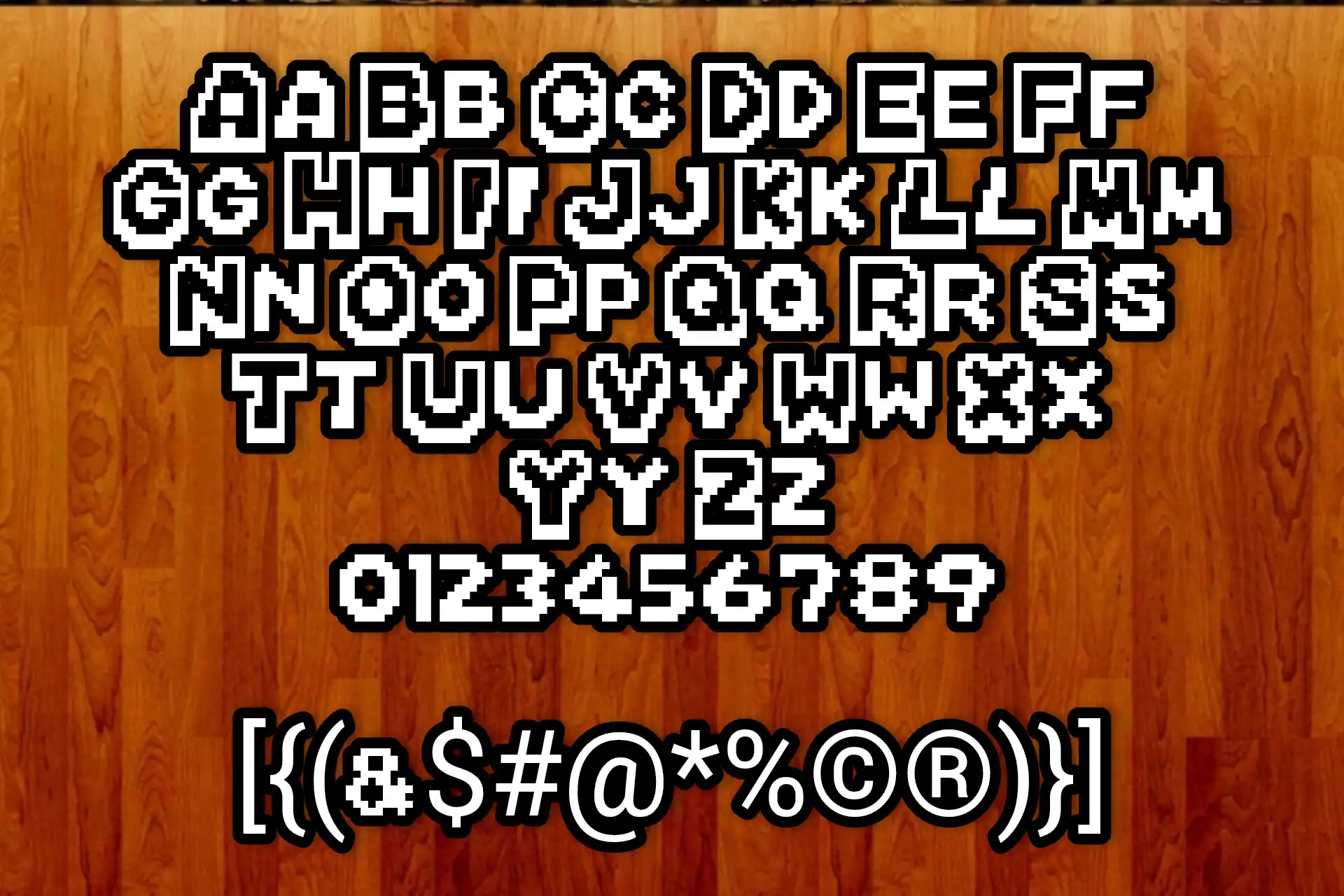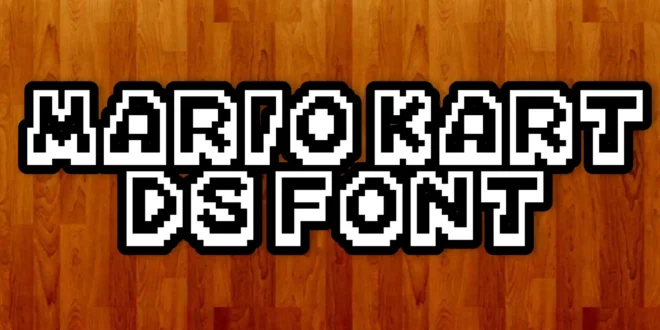
Mario Kart DS Font is a Roman design serif typeface that is very treated and prominent. This loosened textual style is like Helvetica one of the most prevailing textual styles for any business endeavors. It belongs to the sans-serif category of fonts.
The organization of the typeface is situated on square capitals. This text style is a generator that will verify the force of your organization. It is a substantial present-day sans-serif with a mathematical expect.
It has extensively been utilized in film banners, images, and Photoshop plans the typeface is moreover a singing liked for a determination of planners who need to make plans in regards to guidelines, marriage, religion, and matters in regards to the first.
Mario Kart DS Font is a profoundly recognized sans-serif typeface that became perceptible after being utilized in the logo of the leaned toward the energized game, Mario Series. The Logo was planned to utilize 2 unique textual styles, one for the game part and the other for the Toy part. Hence, the textual style used in the ‘Story’ expression is Gill Sans Striking, a well-known Gill Sans family typeface.
For the ‘Toy’ part, the Mario Kart Ds Font utilized was a modified comic. An English typeface planner Eric Gill drafted this typeface in 1926 which later became public in 1928 by an American organization, Monotype. Therefore, you need to utilize a choice of Mario Kart Ds text style, Specialist Red and Napalm text styles are broadly utilized and end up being the best other option.
The text style has a wide affirmation across the globe that is being utilized in numerous value-noted spots and stages. In a few stages, this text style was carefully delivered and became one of the values utilizing sans-serif Typography textual styles. From being utilized in film Logos to large global organizations’ Titles, it took everybody’s consideration and made everybody fall head over heels for the plan.
In 1949 an English Railroad Board involved this text style as a Logo and was in like manner used in a ton of its printed yield, predominantly in capital settings. For record purposes, the textual style was additionally applied in the London Transport. A printing History specialist Paul Shaw named this textual style one of the traditional typefaces. Additionally, in English Vehicle Commission likewise tried different things with this textual style before.
In media outlets, this textual style was likewise highlighted in various stages. The English Telecom Corporation involved this textual style in the Logo in 1997. Numerous other telecom companies got their hands on this text style in the past which gave the stations a monstrous reaction.
A laid-out and noted London Church, the Church of London, applied this textual style to the normal Studio family before. In the hardware stores, the English Furnished Power likewise got their hands on this Typography. The second critical shopping center SM Megamall utilized its Logo. Numerous other shopping centers likewise included this typeface on their Logo.
Although, the Mario Kart Ds Font is a flexible typeface that you can use in your everyday errands. In your recently made sites and ventures, you can consider this sans-serif typeface. For commercial and distributing material, the text style merits consideration. From Shopping center logos to TV series logos, use it on each stage.
That extraordinary text style has become a public region. Along these lines, anyone can be unreservedly involved in various business obligations. As an occurrence, insignia, digital book cowls, card prints, film banners, tattoos, images, further to various subjects.
This business sans-serif text style has a special and particular style. In the beginning, it was begun in a couple of styles, however with time it extended and began being presented in various styles. A couple of them incorporate Gill Sans Striking, Light, Shadow, Intense Consolidated, Appearance, Ultra Strong, Additional Strong, Naming, Striking Dense Naming, and numerous others.